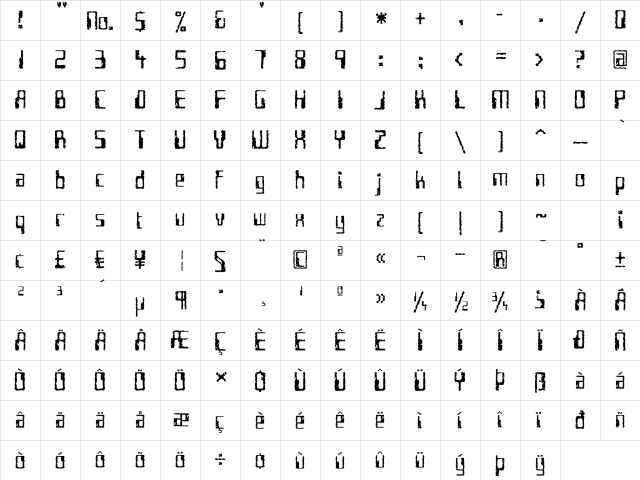
Future Imperfect Regular
Design Context for Future Imperfect Typeface
Future Imperfect has a distinctly futuristic character, with geometric precision and clean angles that feel at home in technology, gaming, and sci-fi contexts.
Pro Tip: Use Future Imperfect in combination with a neutral sans for body text. Let it define the brand voice in headlines while keeping reading comfortable elsewhere.